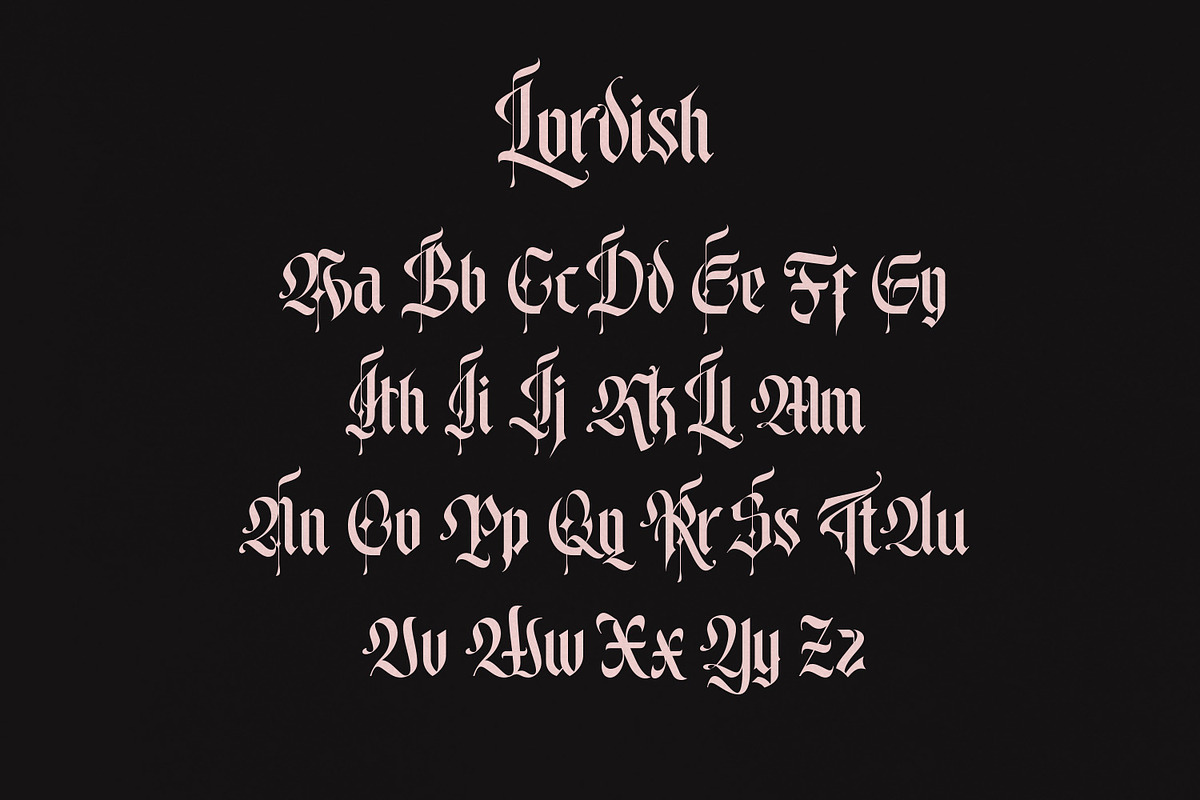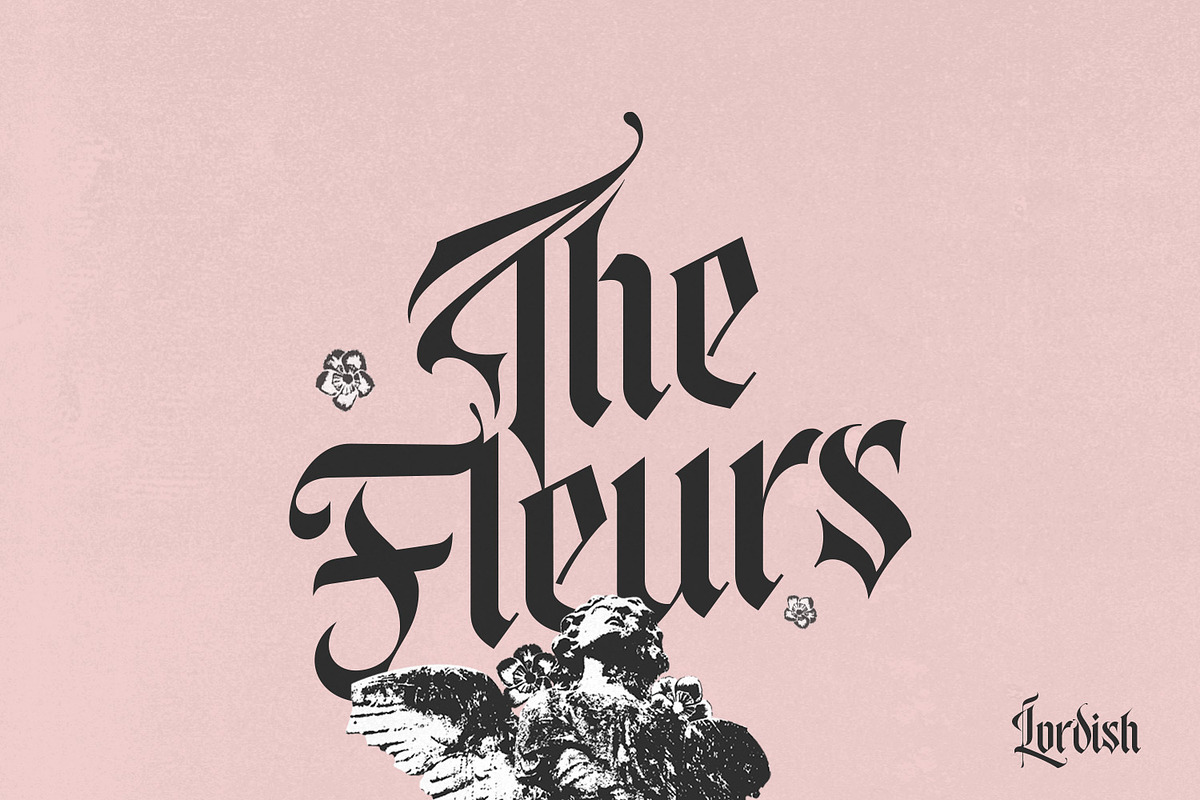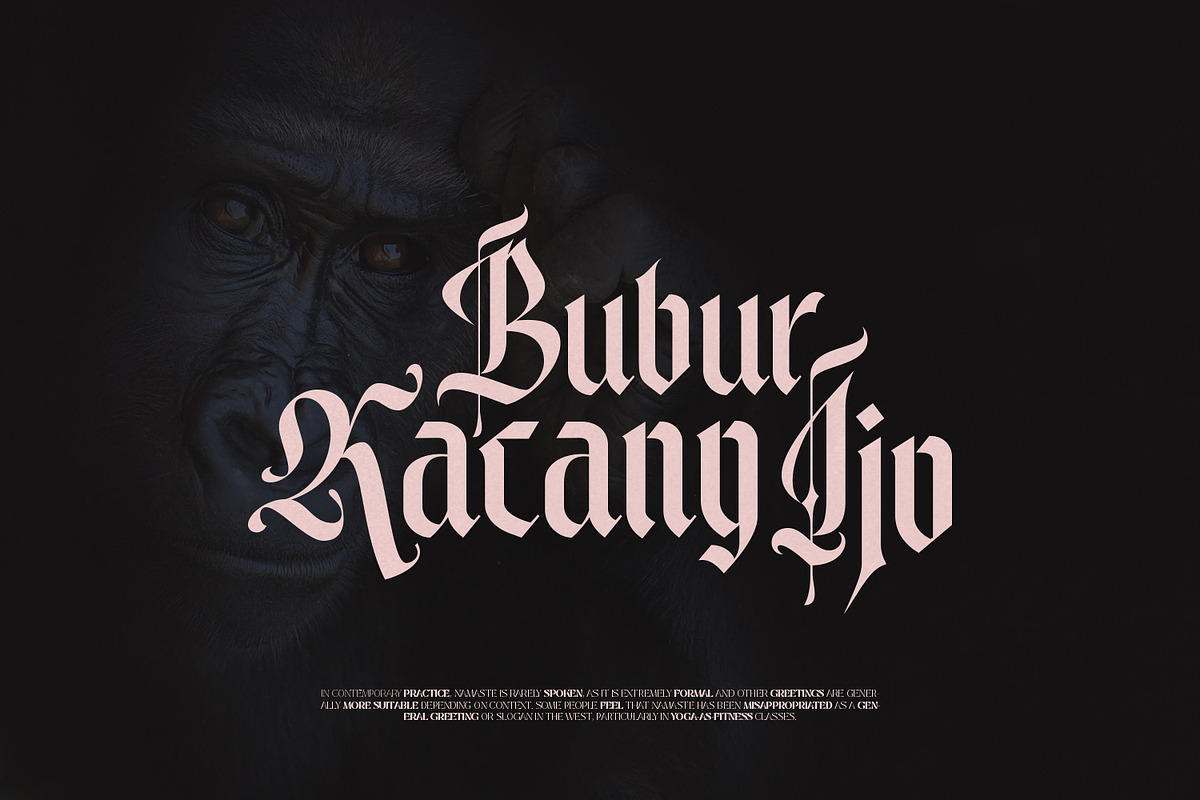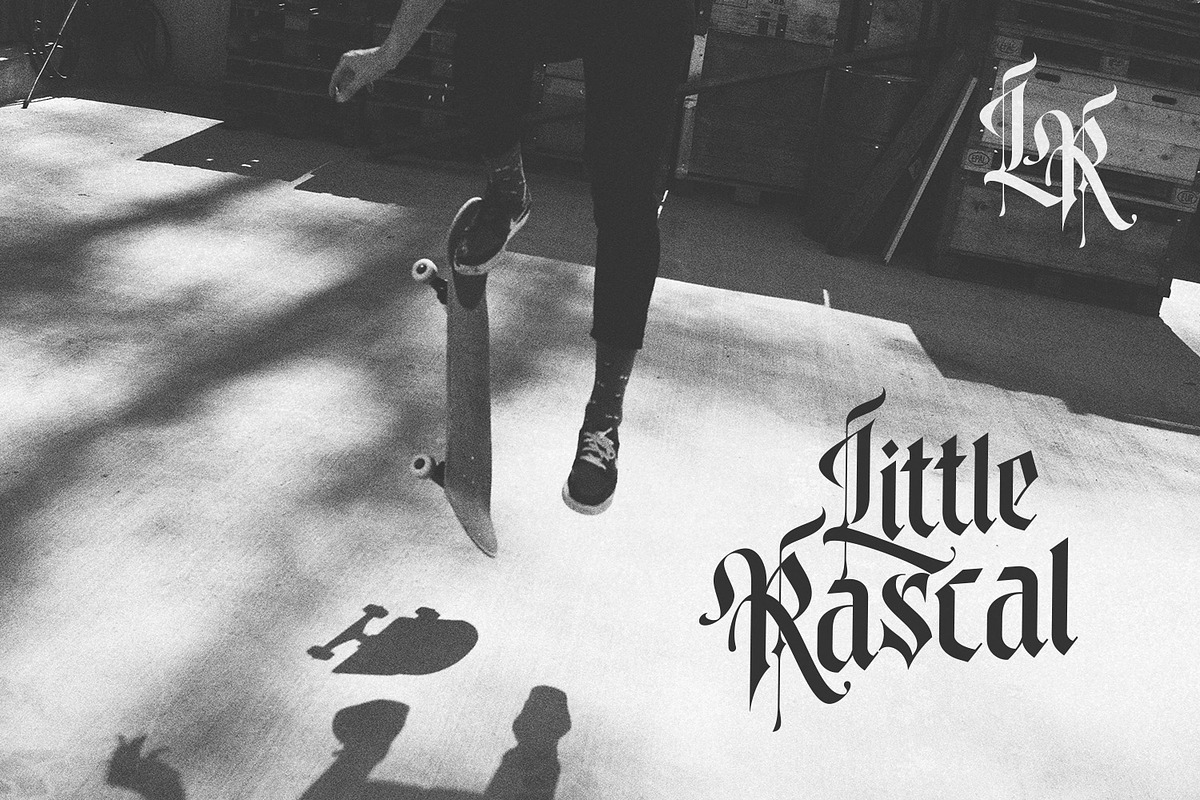
Lordish Font is a distinctive blackletter typeface, available in three weights: Thin, Light, and Regular. Featuring uppercase, lowercase, punctuation, and international characters, it’s perfect for display designs, tattoos, and bold stylistic projects.